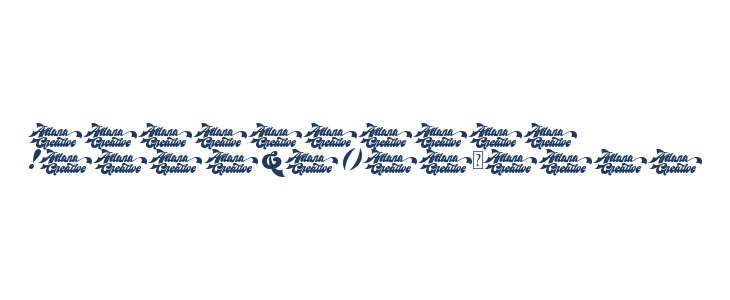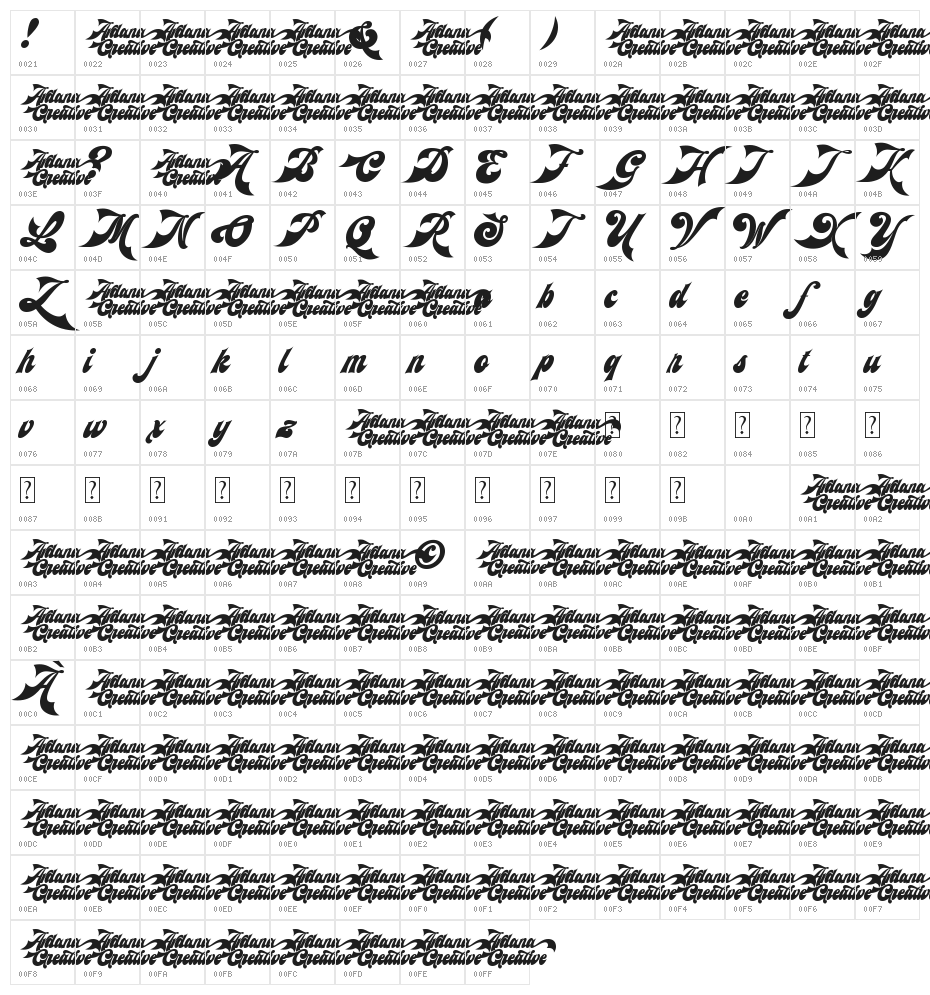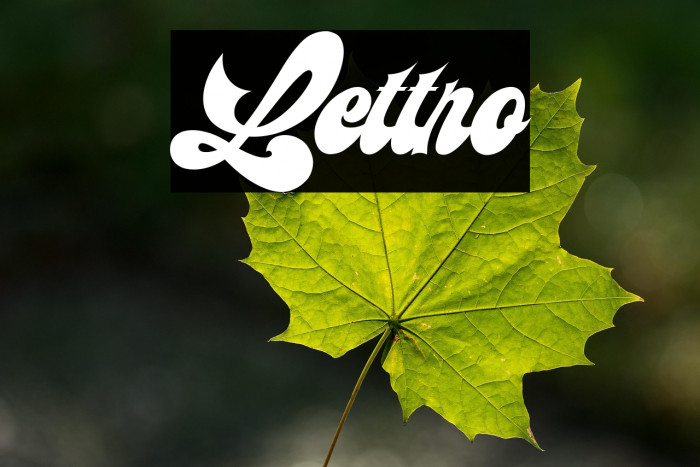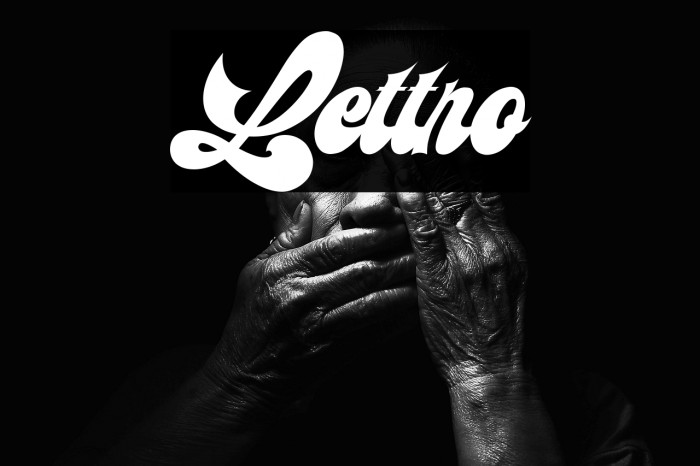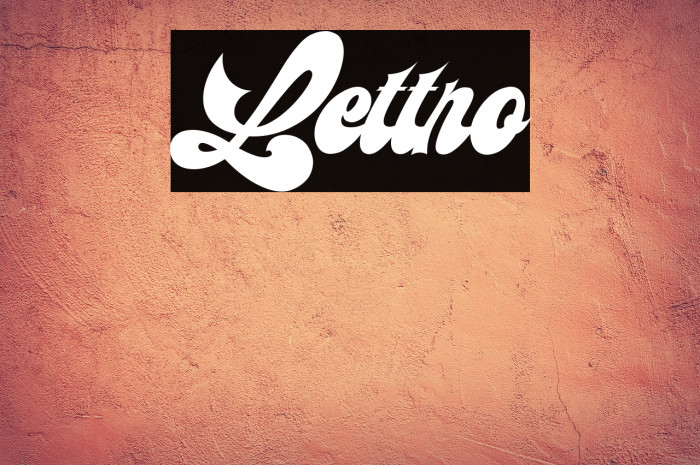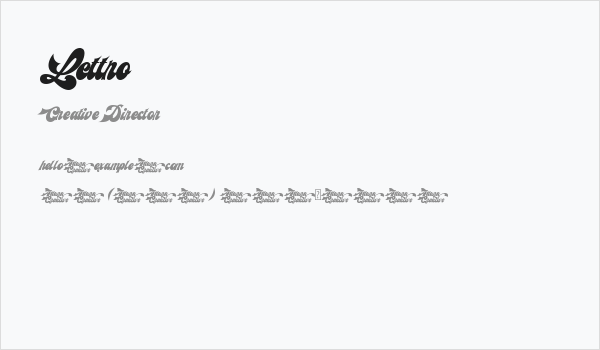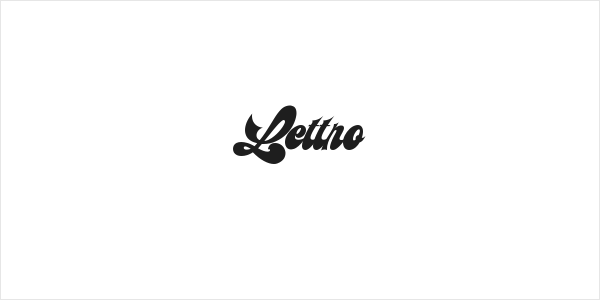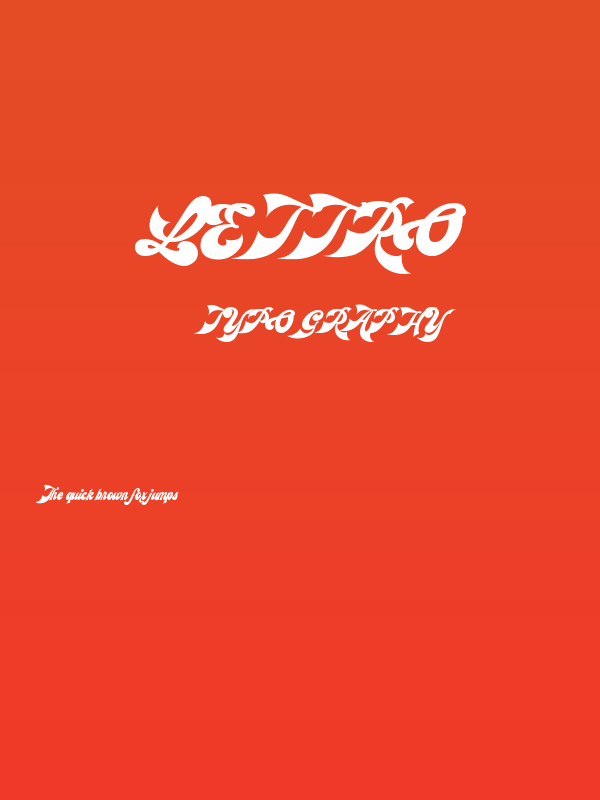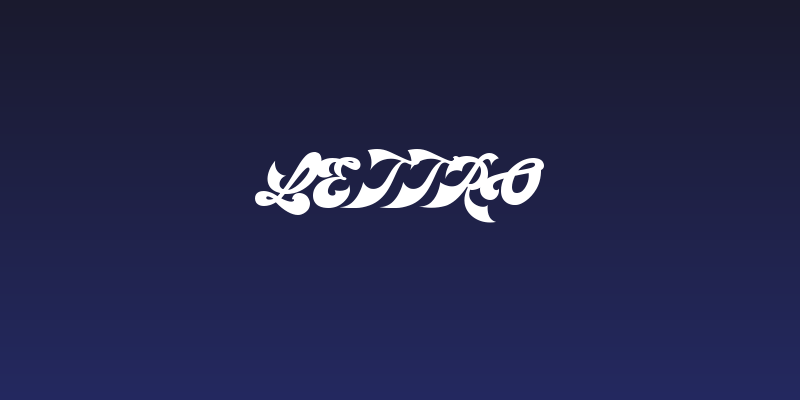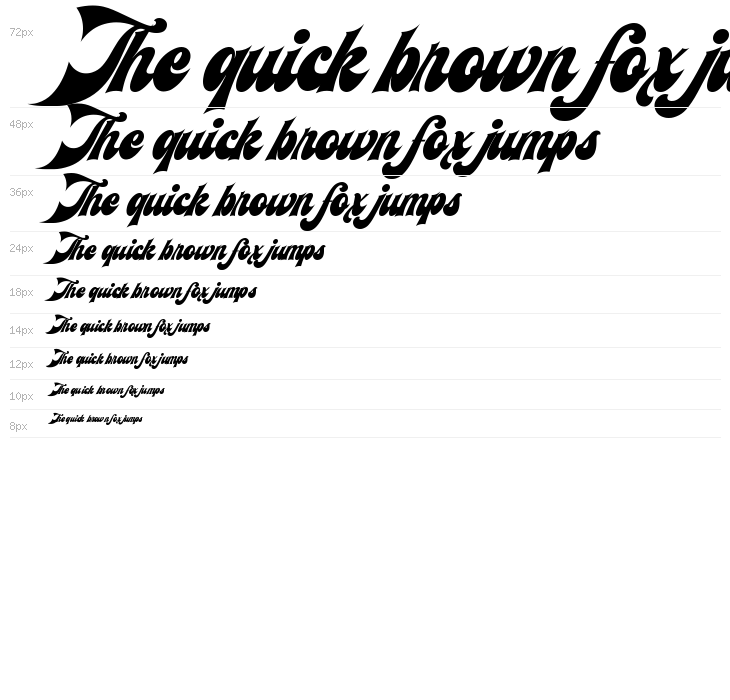
Lettro Font
Lettro Description
This font exhibits a bold and dynamic script style, characterized by its sweeping curves and dramatic flourishes. The uppercase letters are particularly ornate, with intricate loops and extensions that give a sense of movement and elegance. The lowercase letters maintain a consistent flow, complementing the uppercase with their smooth, rounded forms. The numbers and special characters are equally stylized, ensuring a cohesive look across all glyphs. This font's high contrast in stroke thickness adds to its striking appearance, making it ideal for attention-grabbing designs.
| Use Case | Logos, Headlines |
| Proposed Projects | Ideal for branding, logos, headlines, and any design requiring a bold, elegant script. |